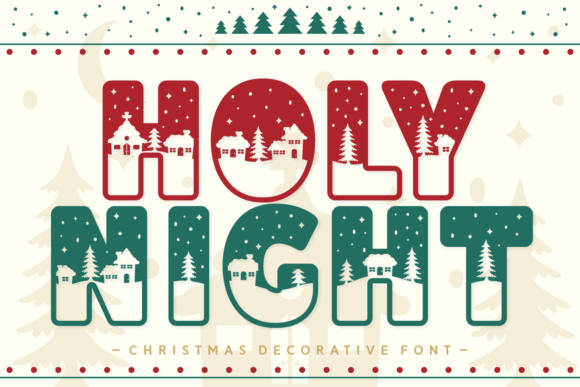
Introducing Holy Night Font, a merry and bright decorative font that will infuse your designs with the spirit of Christmas. Created by Rizkky from 7NTypes, this unique font is the perfect addition to your collection, guaranteeing to become your favorite winter font.
Holy Night Font is more than just letters on a page; it is an enchanting journey into the magic of the holiday season. With its charming and festive decorations, this font breathes life into your Christmas designs, creating an atmosphere of joy and celebration.
Capture the attention of your audience with Holy Night Font's captivating and eye-catching appeal. Its intricate details and playful ornaments add a touch of whimsy to any project, making it perfect for greetings cards, invitations, and festive banners. Let your creativity run wild as you create stunning visuals that evoke warmth and happiness.
With Holy Night Font, every word becomes a celebration. Its elegant and graceful curves create a harmonious blend of traditional and modern design elements, ensuring your text stands out from the crowd. Whether you're crafting personalized Christmas cards or designing captivating social media posts, this font will make your message shine.
Embrace the magic of the holiday season and make your designs truly unforgettable. Holy Night Font is the key to unlocking a world of endless possibilities, where every stroke of the pen tells a story of love, laughter, and togetherness.